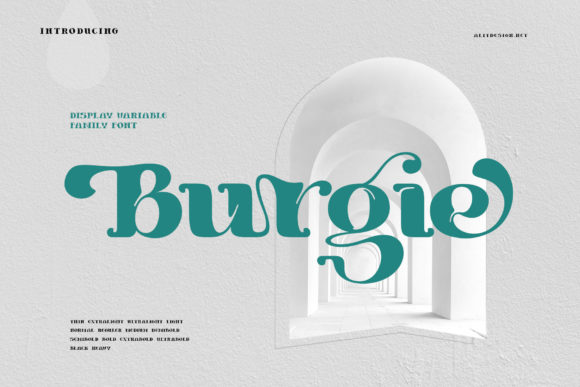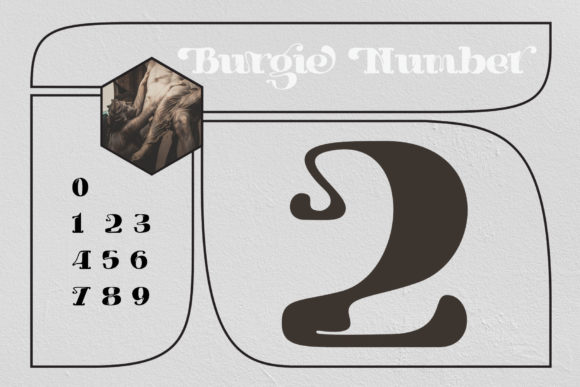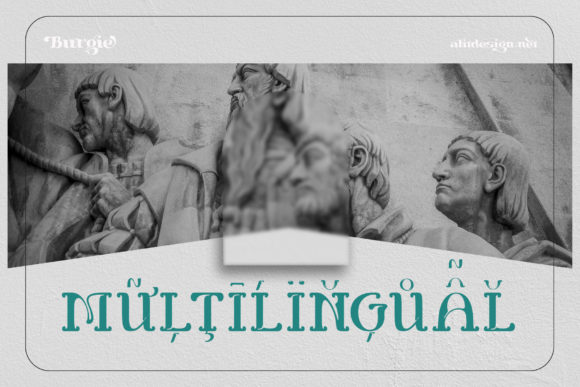
HomePersonal Use FreeBurgie Personal Use Free Burgie FacebookXPinterestWhatsApp 1 of 3 About Burgie Font Burgie is a bold and trendy-looking display font. This font is neatly crafted and highly detailed. Whatever the topic, this font will be a wonderful asset to your font library, as it has the potential to enhance any creation. DOWNLOAD NOW People also explored Cingur Font Homin Fun Font Sometime Font Hunkydory Font Mockey Smart Font Just Mother Font Claire Font Miracle Bastian Font Andhyta Font 394 0 TagsBurgieBurgie Font Previous articlePoulineNext articleCiggs LEAVE A REPLY Cancel reply Comment: Please enter your comment! Name:* Please enter your name here Email:* You have entered an incorrect email address! Please enter your email address here Website: Save my name, email, and website in this browser for the next time I comment. Personal Use Free Aldenburg Personal Use Free Read more about this font Round Geometric Personal Use Free Read more about this font Borg Personal Use Free Read more about this font Machine House Personal Use Free Read more about this font BLOG How to Cut Any Font on Cricut: Convert a Font to SVG (Free) Turn any font into a clean SVG so it cuts crisp on Cricut - a quick 3-step workflow using a free font-to-SVG tool. Exploring Font Trends Free vs Paid Fonts: Why Investing in Premium Fonts Is Worth It Where to Buy American Fonts Online in 2024